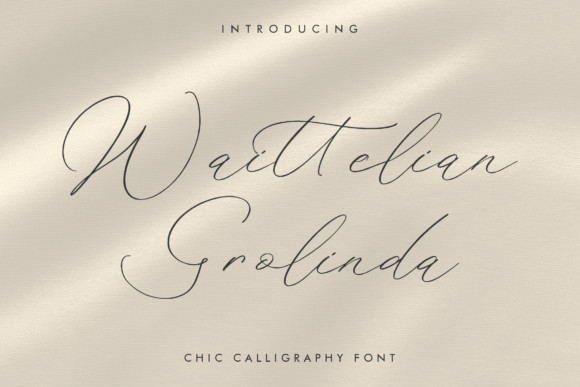
Step into the world of Waittelian Grolinda, a script font family that will cast a spellbinding charm over your designs. This elegant and modern script is the perfect choice for those looking to create an enchanting and sophisticated look.
Indulge in the luxury of Waittelian Grolinda's graceful curves and sweeping strokes. Its unmistakable style adds a touch of timeless charm to logos, book covers, movie titles, fashion brands, and more. From the intricate details of each letter to the overall harmonious flow, this font is a masterpiece of digital calligraphy.
Unleash your creativity with Waittelian Grolinda and let your words dance across the page. Its versatility makes it an ideal choice for a wide range of projects, from invitations and greeting cards to posters and social media graphics. Bring your designs to life with a font that speaks volumes without uttering a single word.
Transport yourself to a world of elegance and sophistication with Waittelian Grolinda. Its enchanting beauty will captivate your audience and leave them spellbound. Experience the magic of this font and watch your designs transform into works of art.
Waittelian Grolinda – The Enchanting Script Font That Will Bewitch Your Designs and Make Them Irresistible.